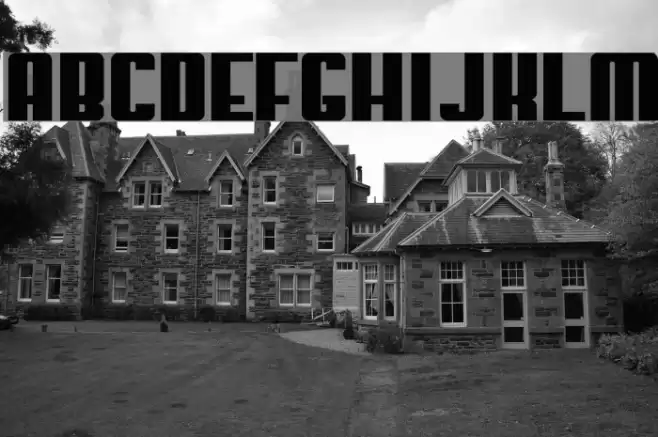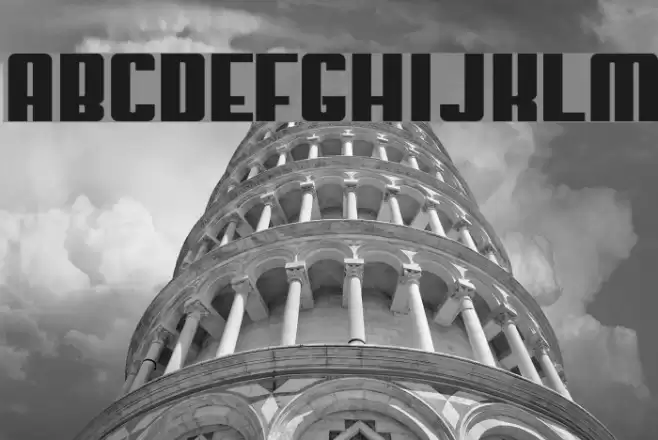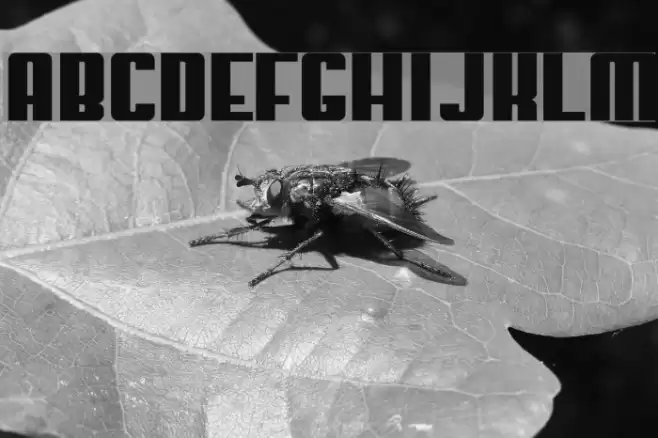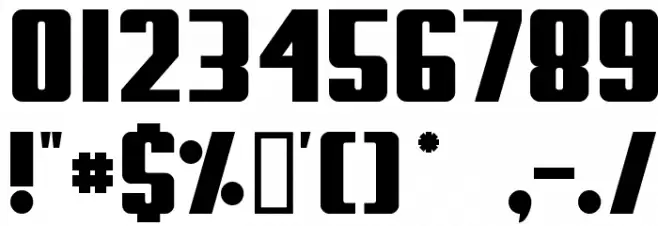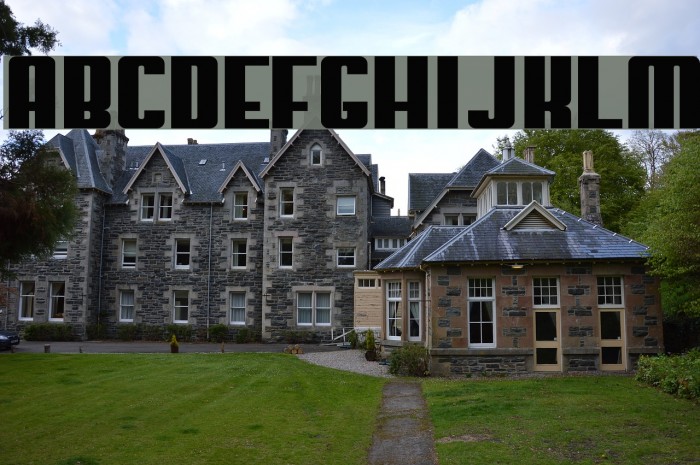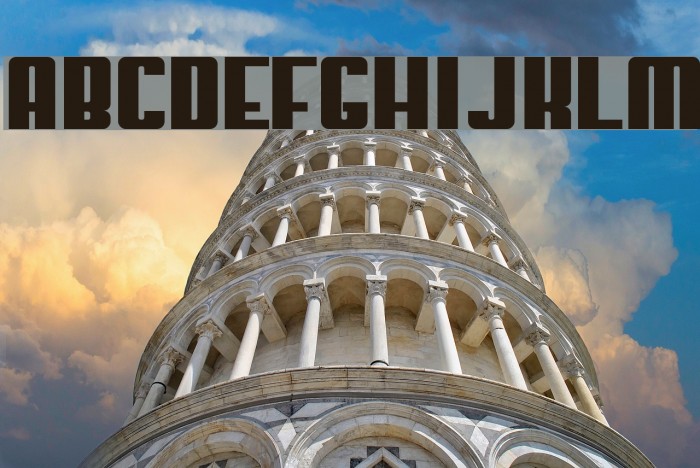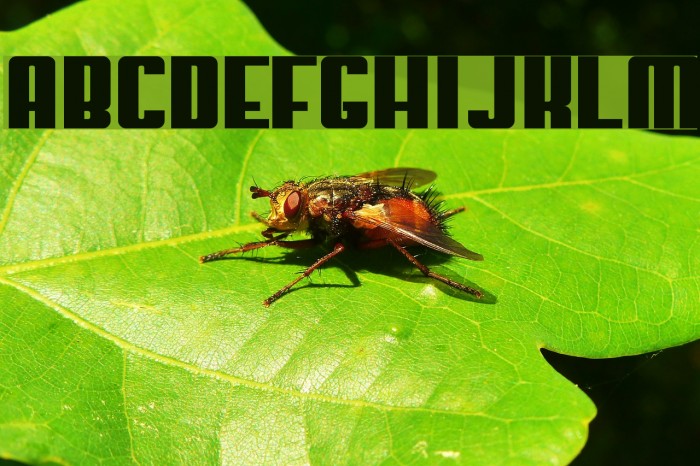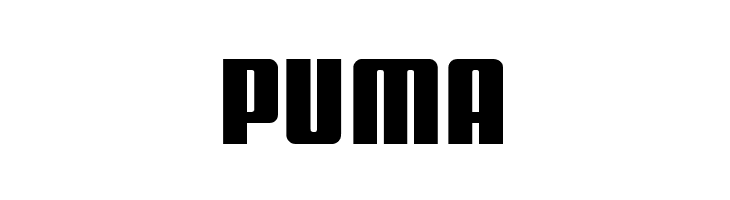
My Puma Font
My Puma Description
This bold and impactful font features a strong, geometric design with a modern flair. The uppercase letters are blocky and assertive, while the lowercase letters maintain a consistent weight and structure, providing a cohesive look. The numbers are equally bold, ensuring readability and presence. Special characters are designed to match the overall aesthetic, making this font suitable for a variety of uses. Its thick strokes and minimal contrast give it a powerful appearance, ideal for making statements.
A bold, geometric font with a modern and assertive style.
- Proposed Projects: Ideal for branding, headlines, posters, and any project requiring a strong visual impact.